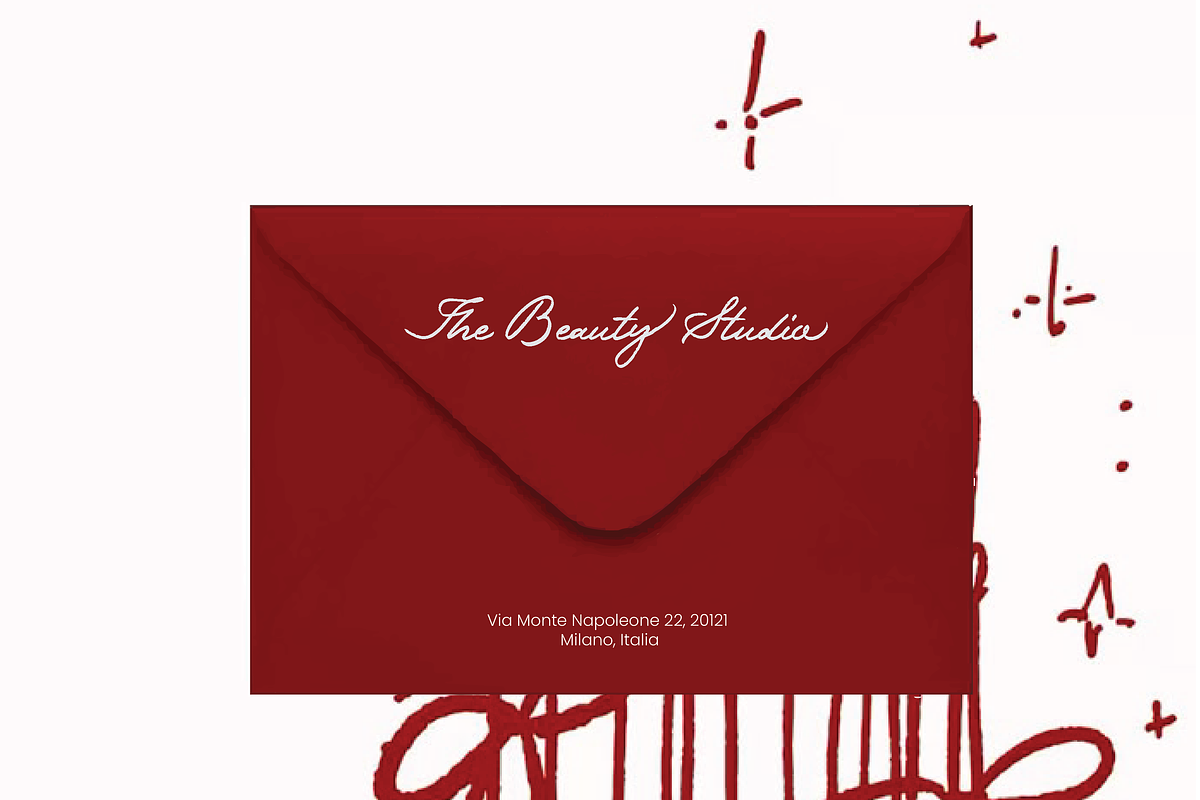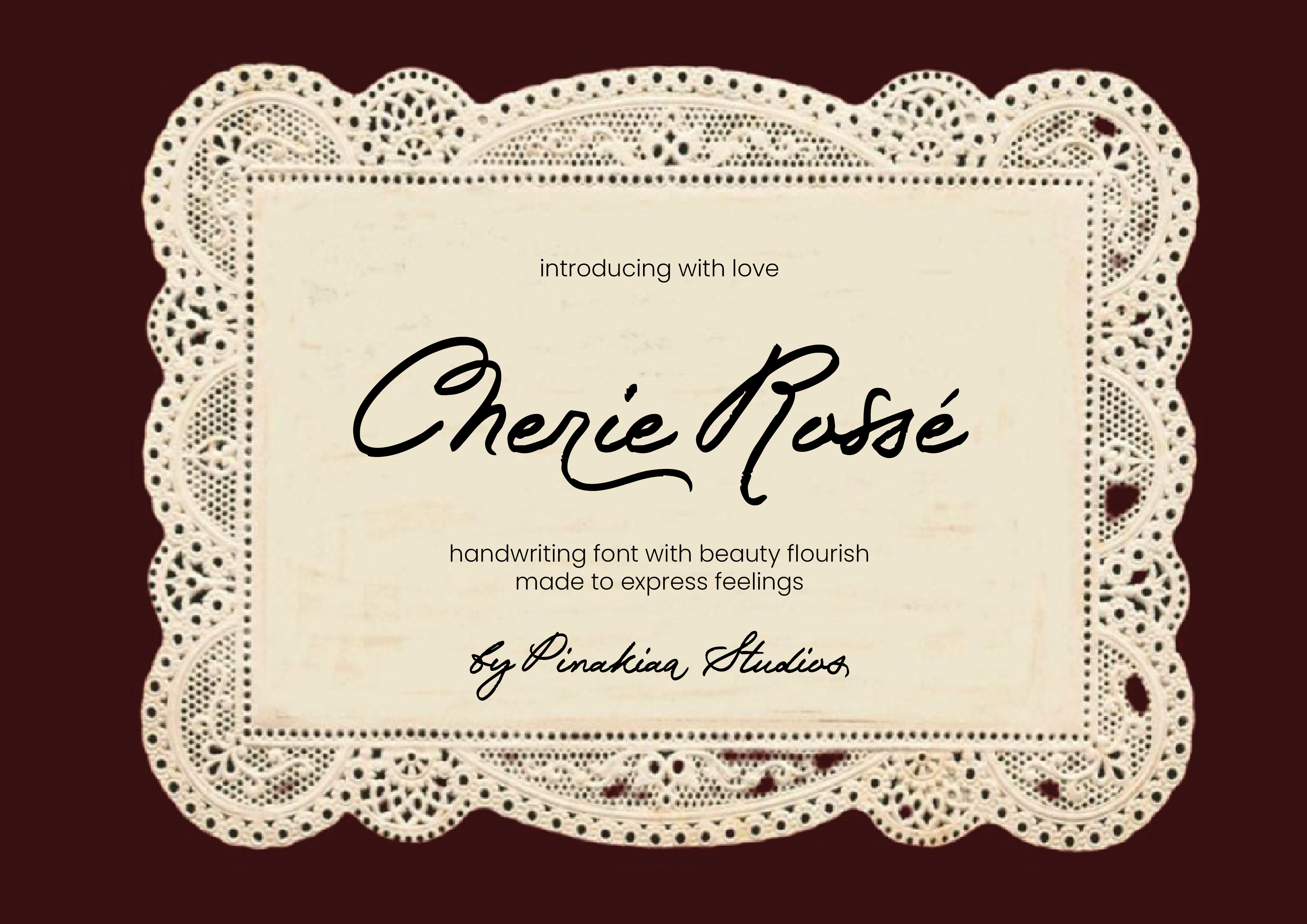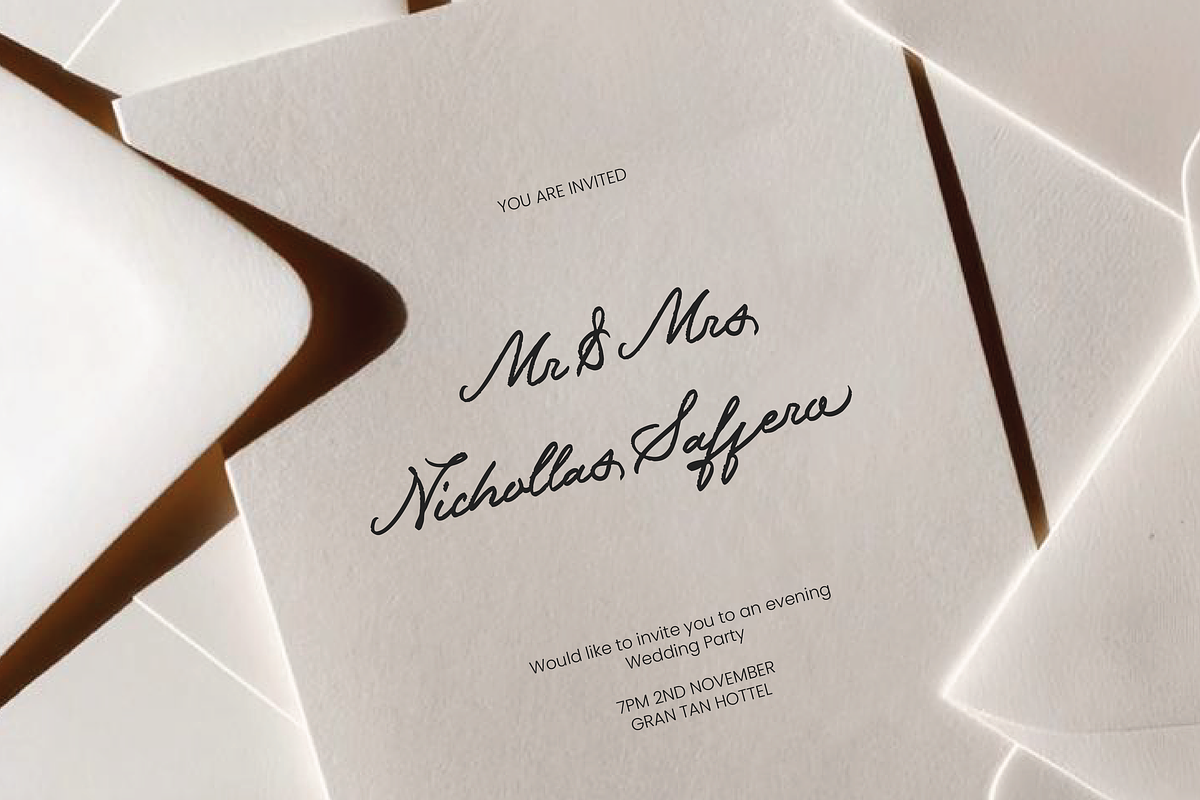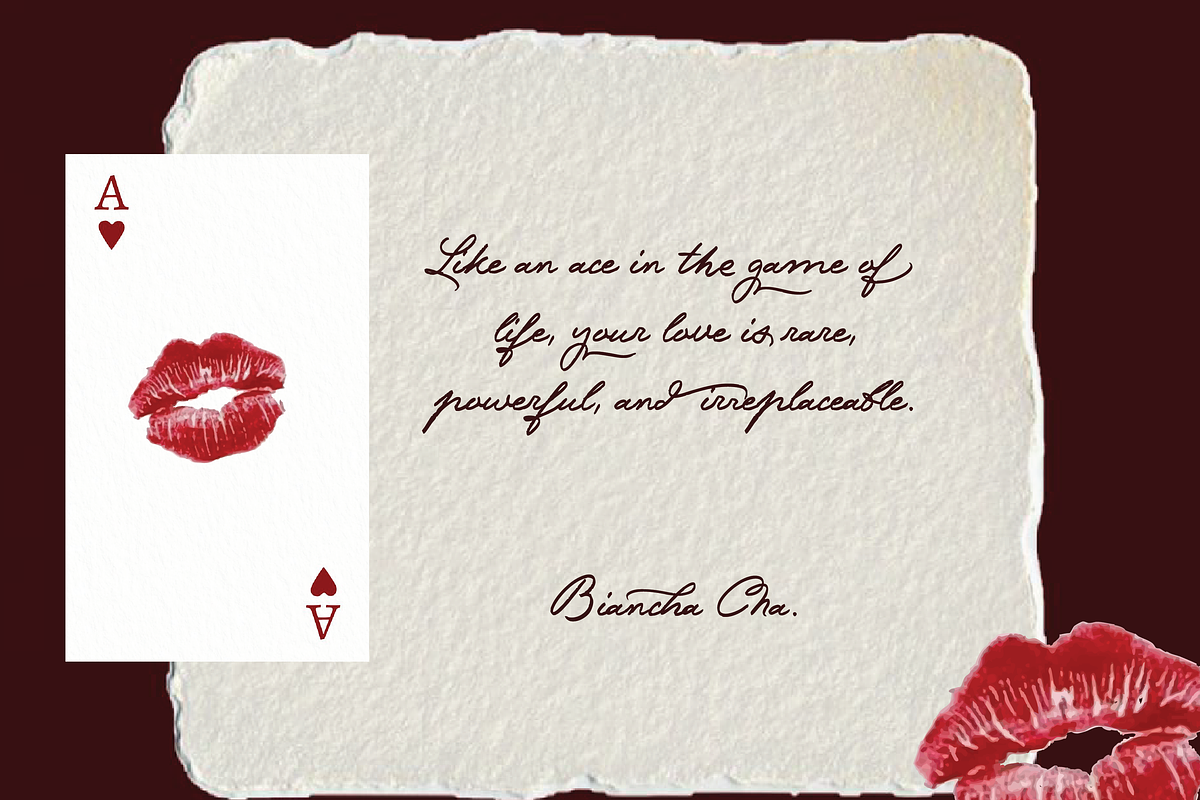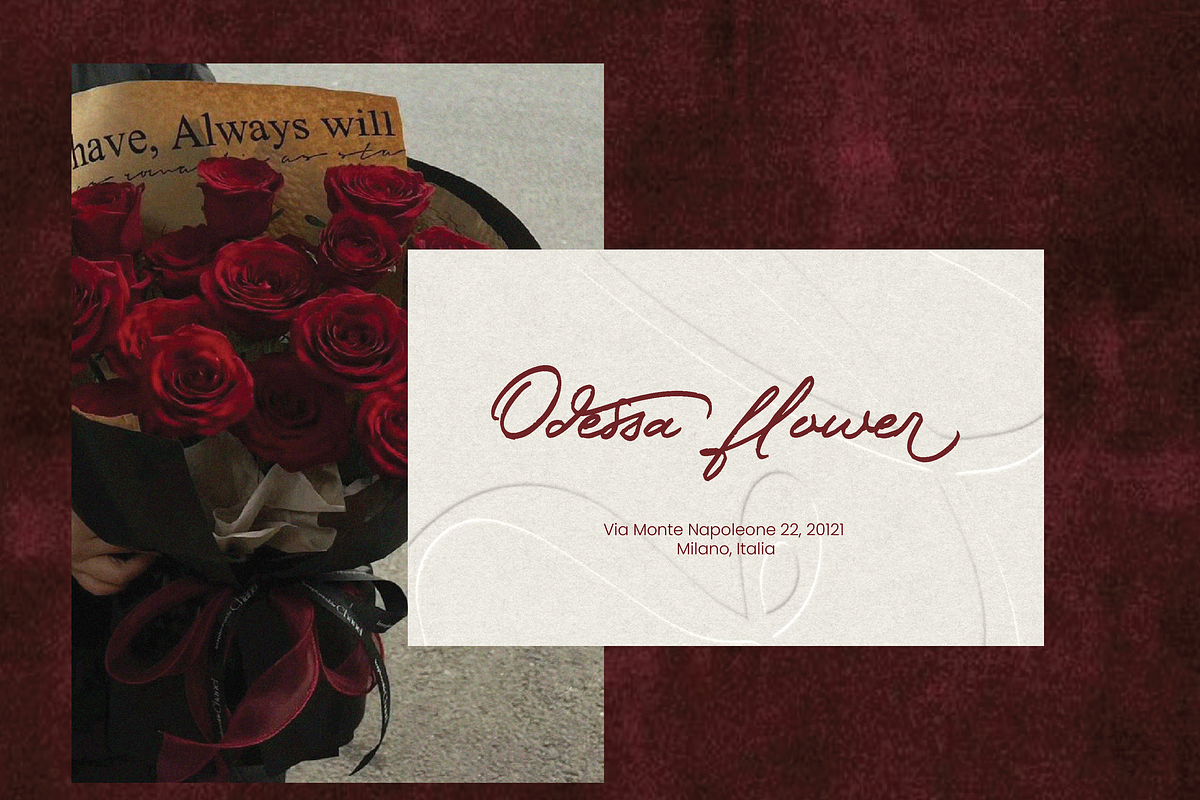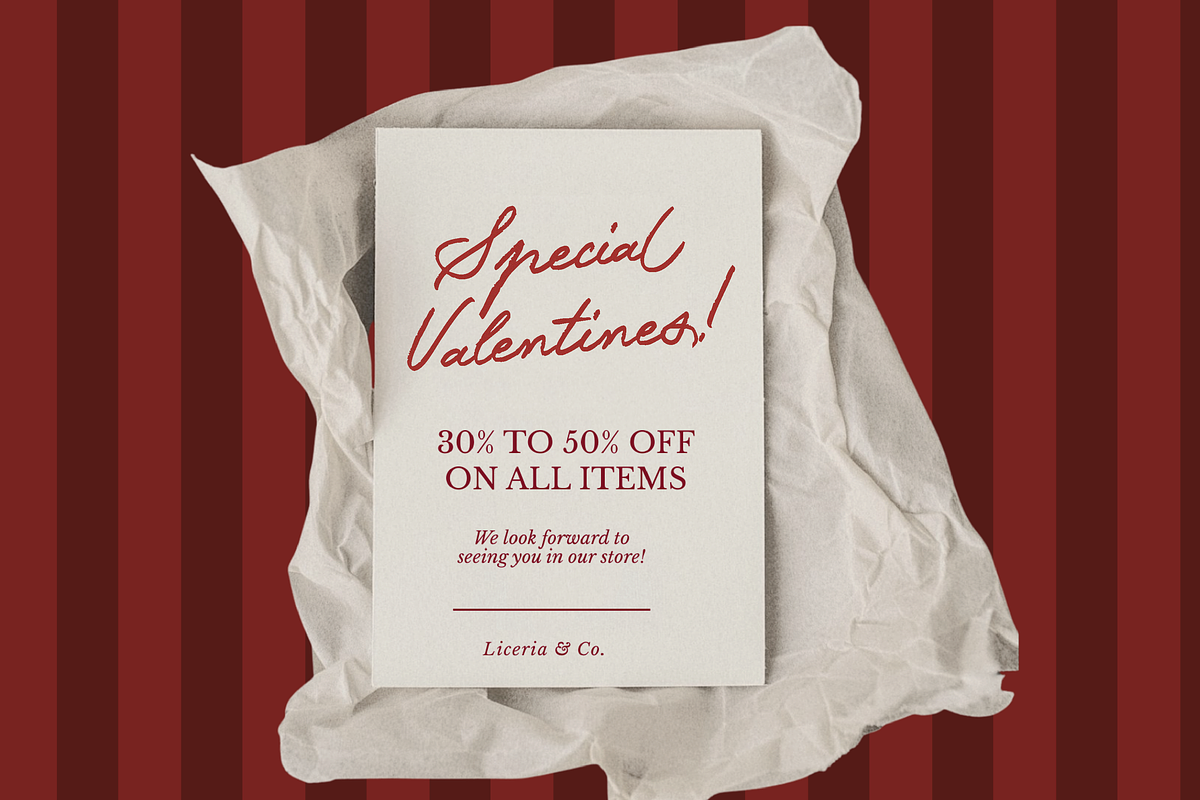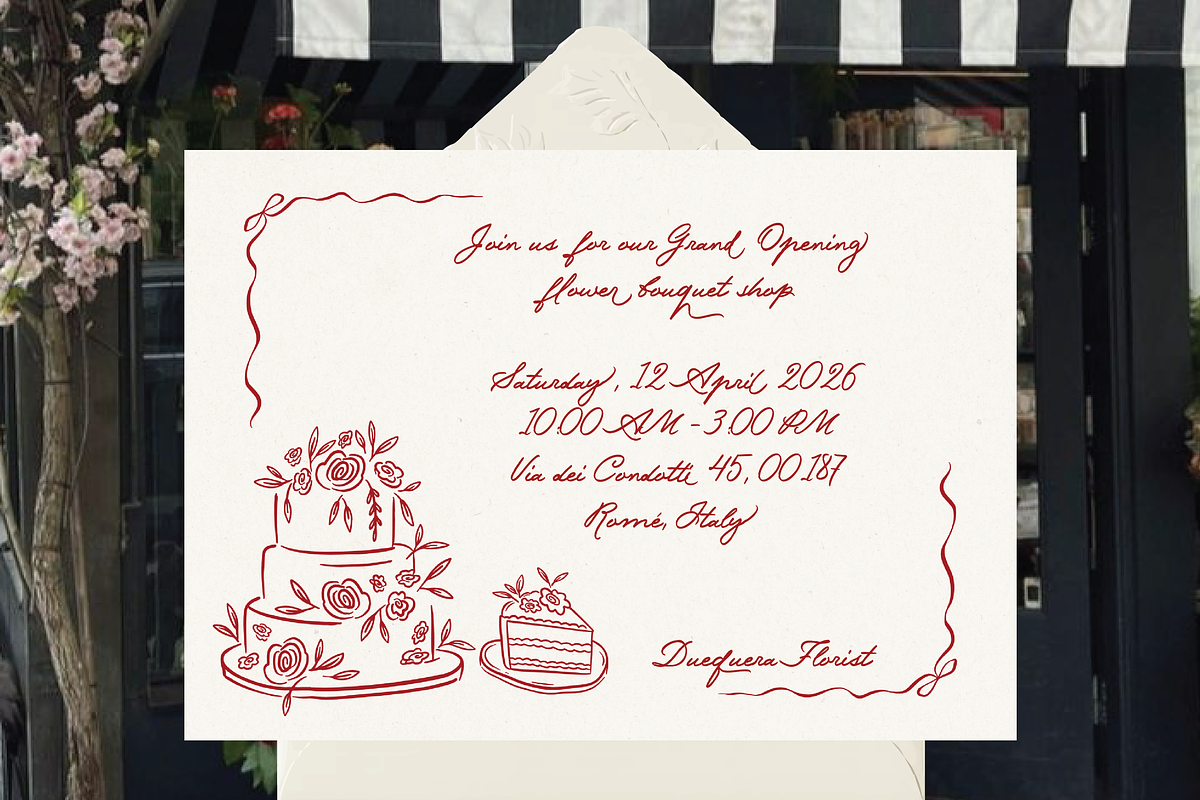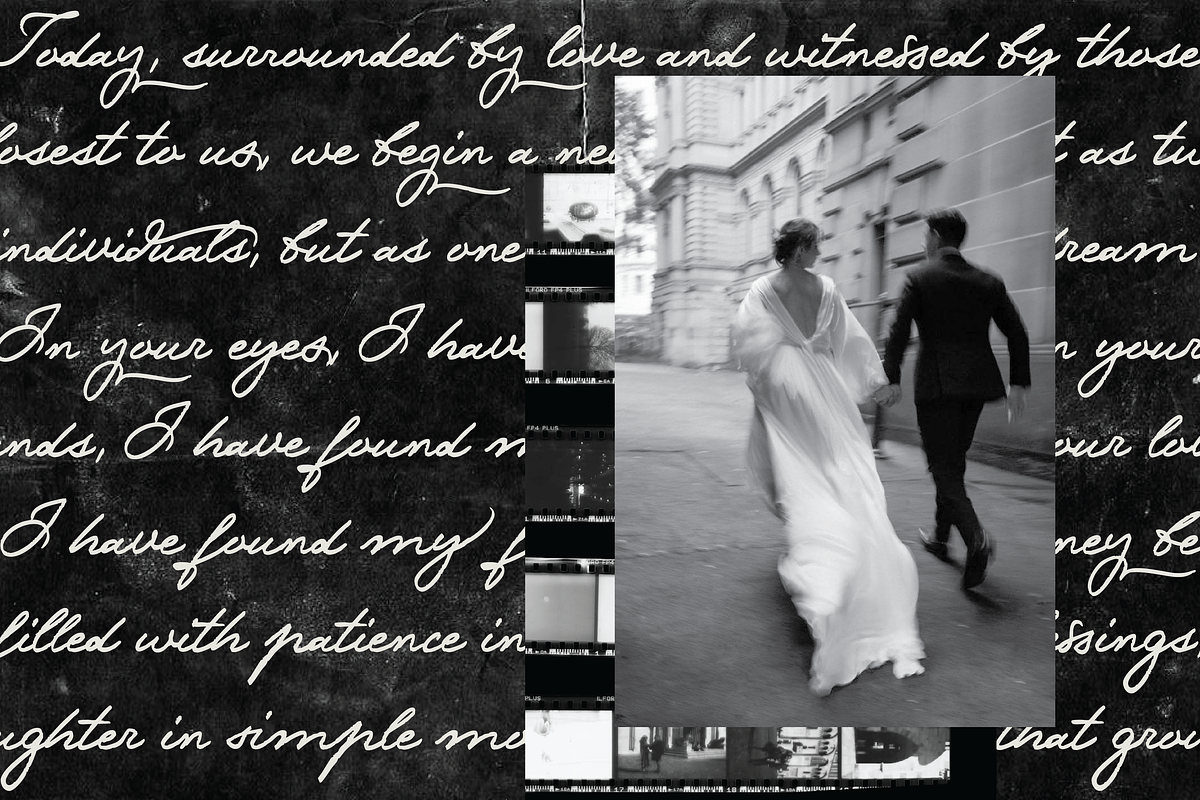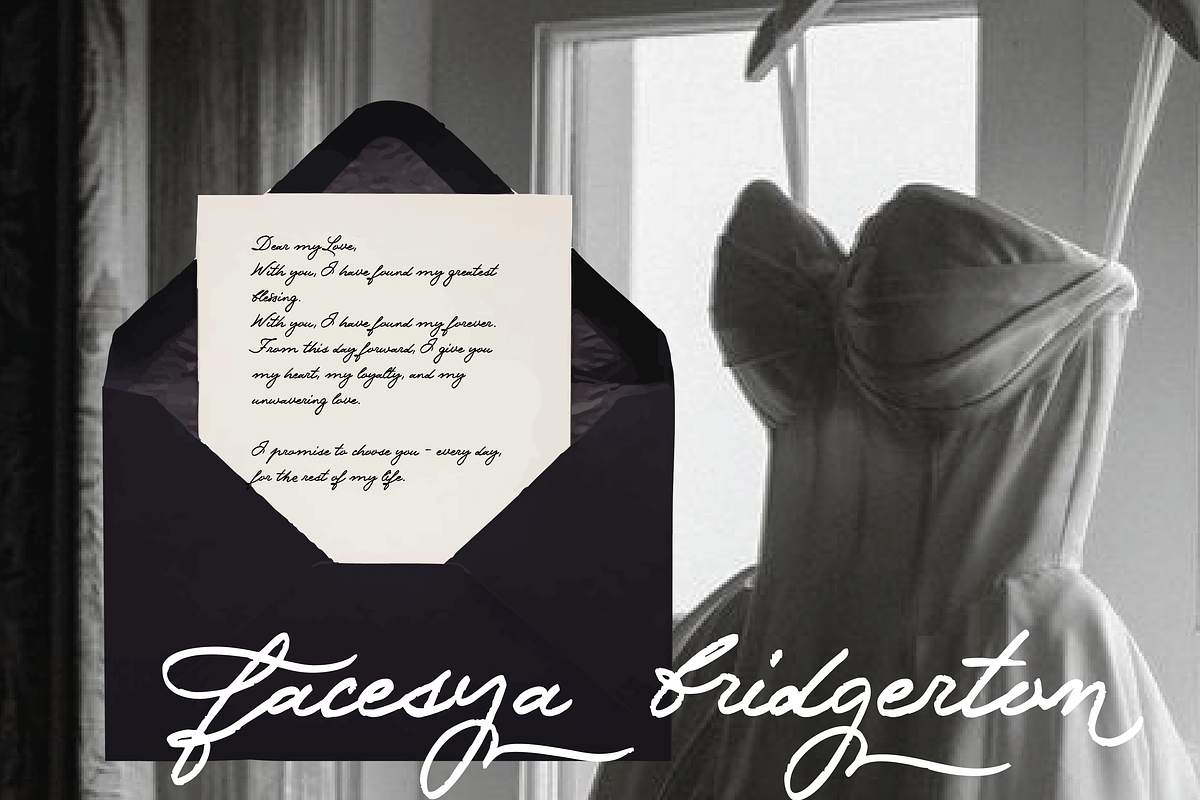
Cherie Rossé Handwritten Font
Cherie Rossé is a graceful handwritten font designed to capture the beauty of heartfelt emotions. With its natural flow, elegant curves, and expressive flourishes, this font brings a romantic and timeless charm to any design. Carefully crafted to feel both intimate and sophisticated, Cherie Rossé is perfect for wedding invitations, branding, quotes, packaging, and heartfelt projects that deserve a personal touch. Each stroke moves effortlessly, creating a harmonious balance between modern calligraphy and classic elegance. Let your words bloom with tenderness and style through Cherie Rossé—a font created to express feelings beautifully.